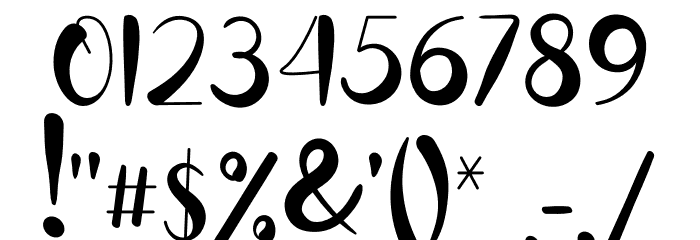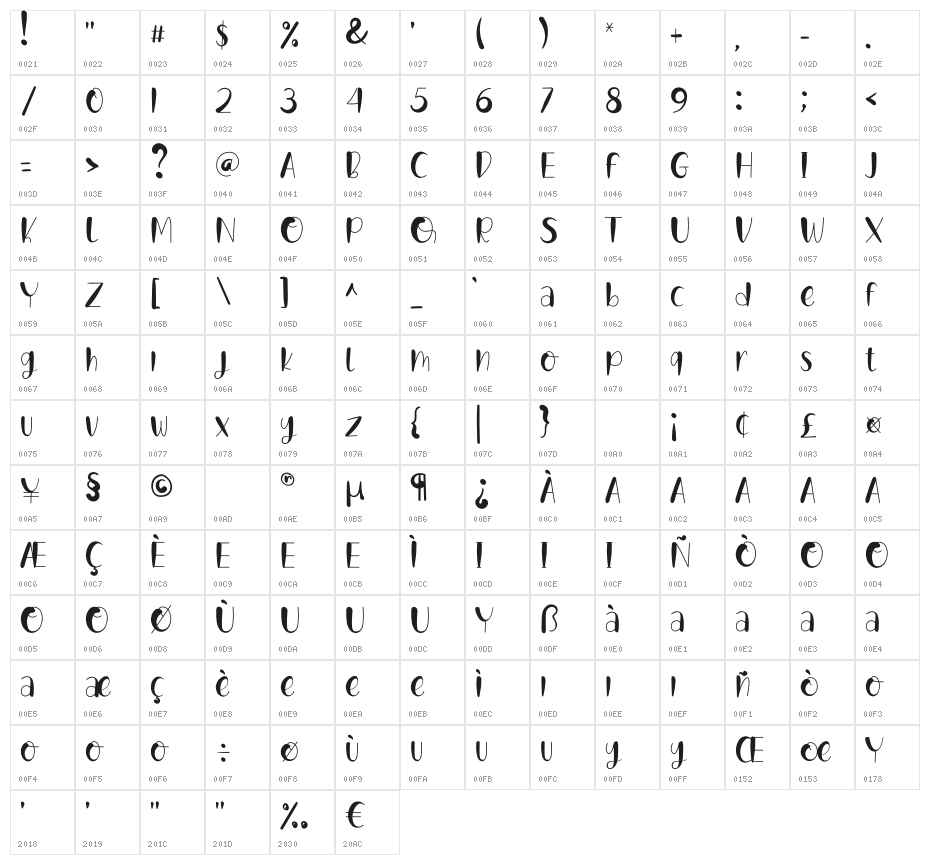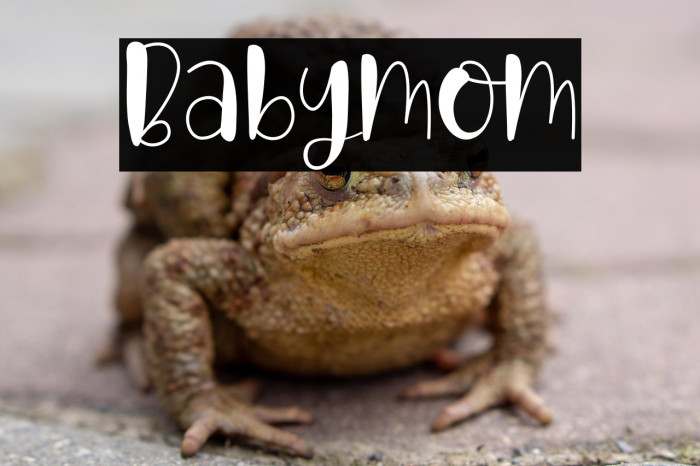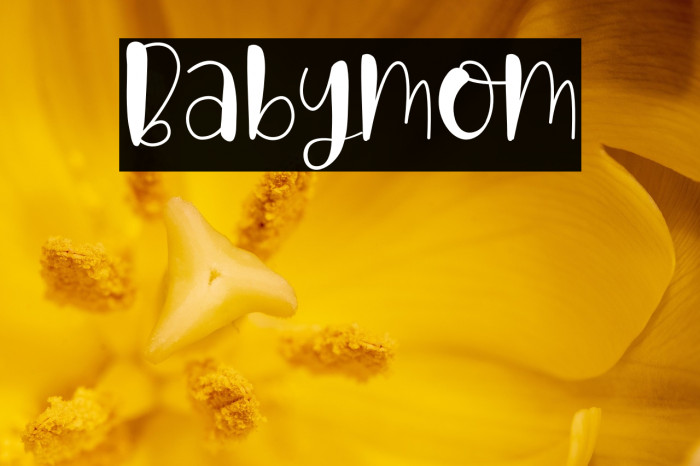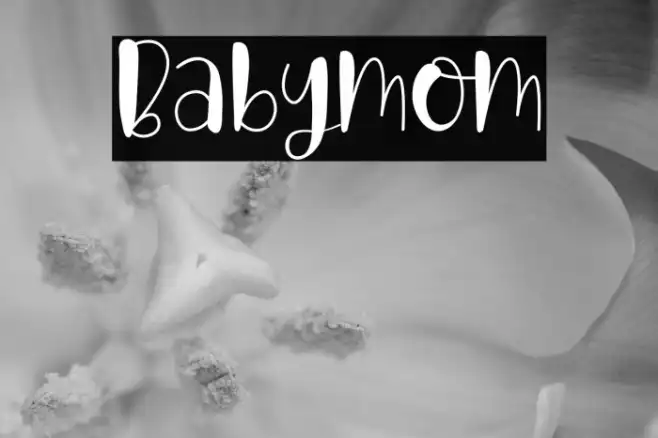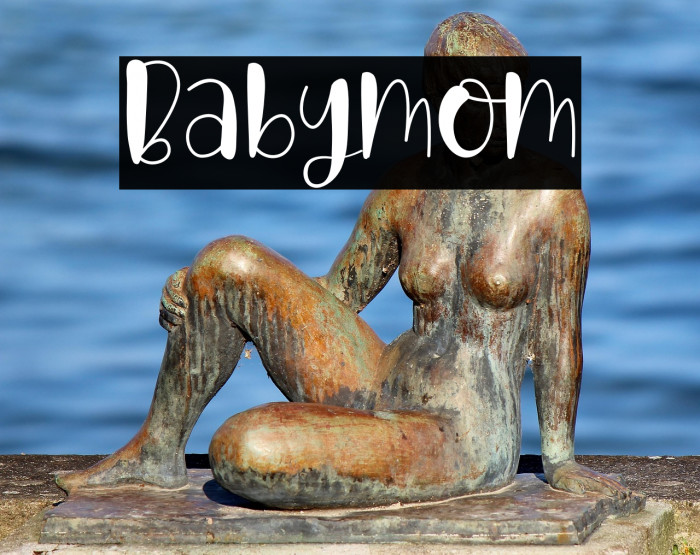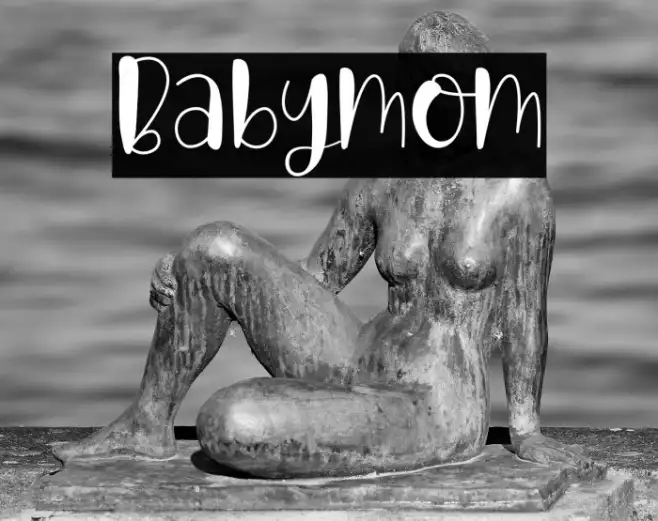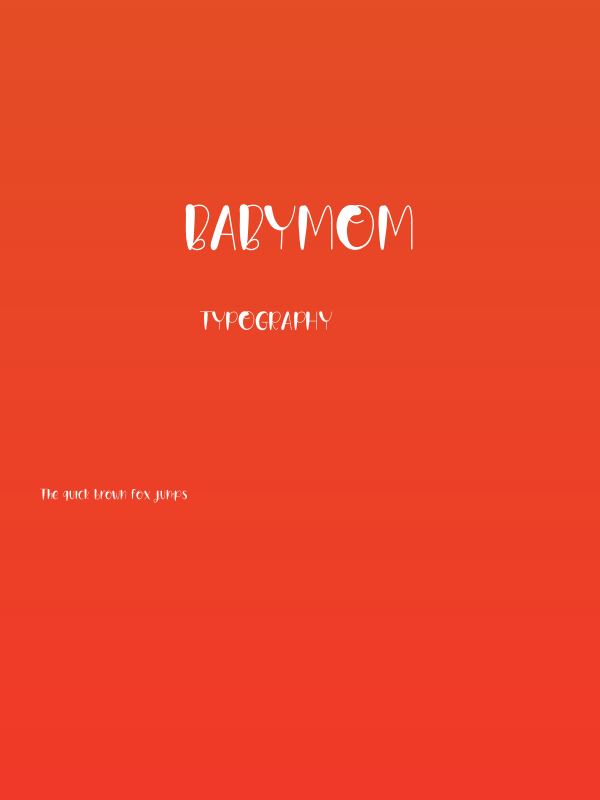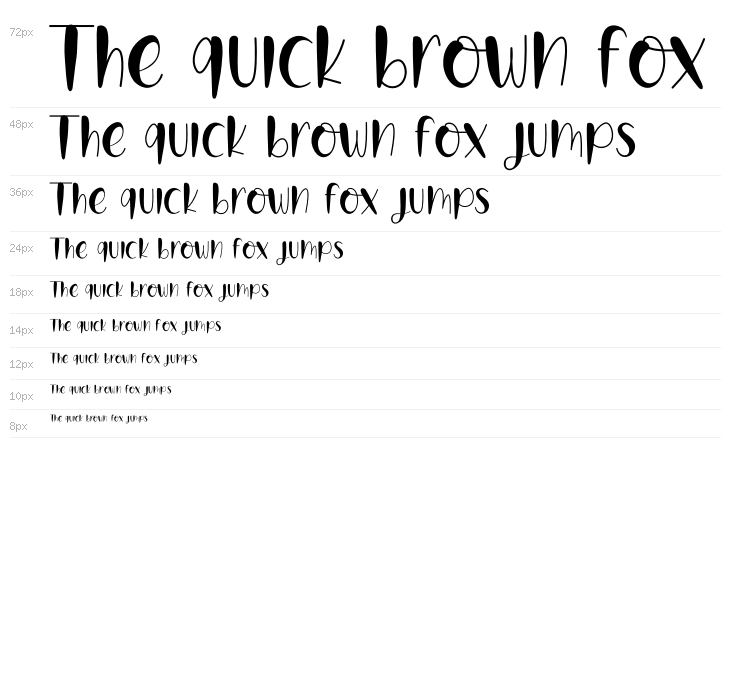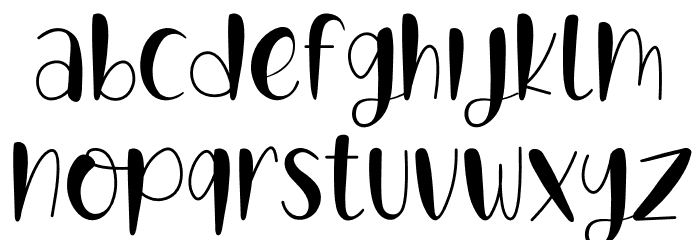
Babymom Font
Babymom Description
This playful and whimsical font features a handwritten style with a smooth, flowing appearance. The letters are characterized by their rounded edges and varying stroke widths, giving it a dynamic and lively feel. The uppercase letters are bold and prominent, while the lowercase letters maintain a consistent style with a slightly more delicate touch. The numerals are clear and easy to read, matching the overall aesthetic of the font. Special characters are creatively designed, adding to the font's charm and versatility. This font is perfect for projects that require a personal, friendly touch.